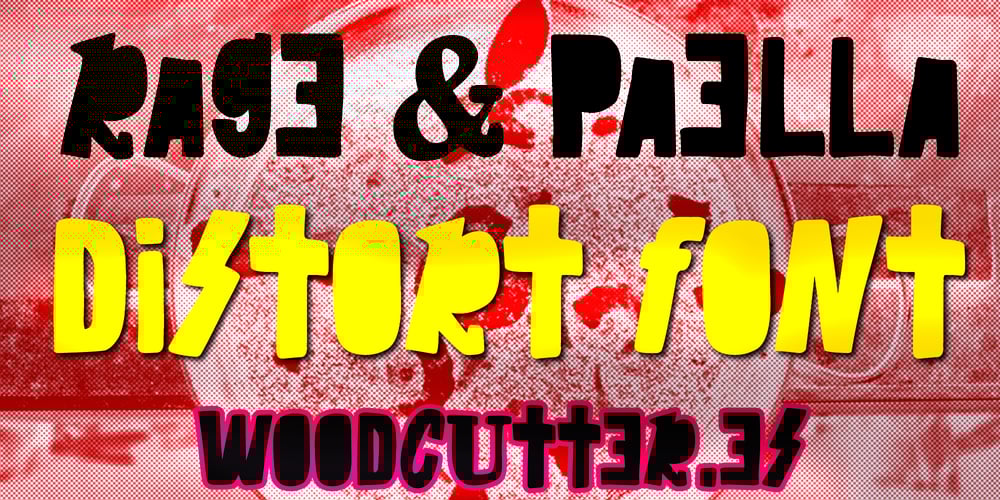
Rage & Paella Font Family was designed by Jordi Manero and published by Woodcutter. Rage & Paella contains 1 styles and family package options. “Rage & Paella” is a chaotic font with distorted letters in different positions, some even inverted. This typeface combines a fun and punk style, ideal for projects looking to convey energy and rebellion. Its disordered and unique characters, along with the inclusion of accents, give it a fresh and dynamic touch. Perfect for posters, album covers, and any design requiring a casual and original approach. “Rage & Paella” will make your creations stand out with their boldness and unmistakable character.